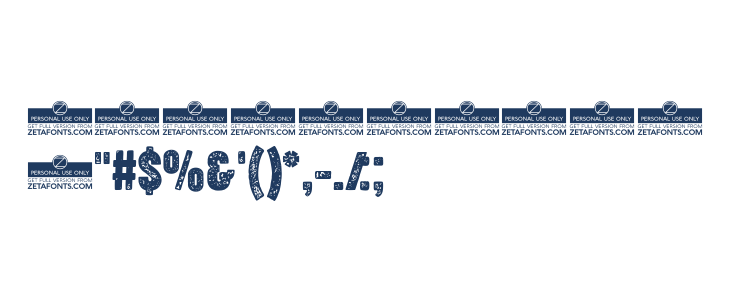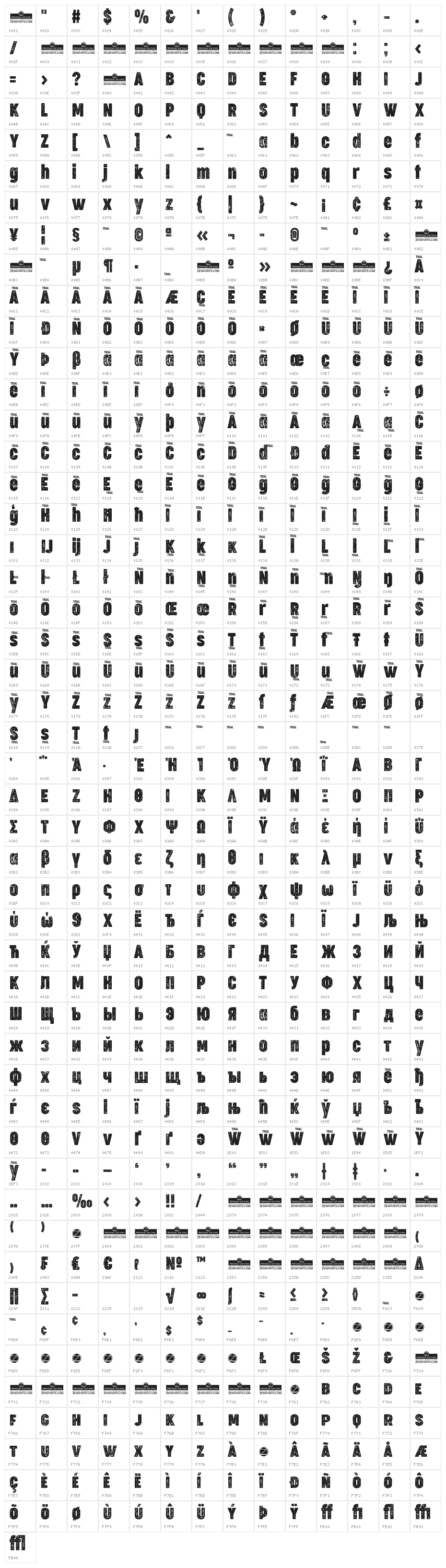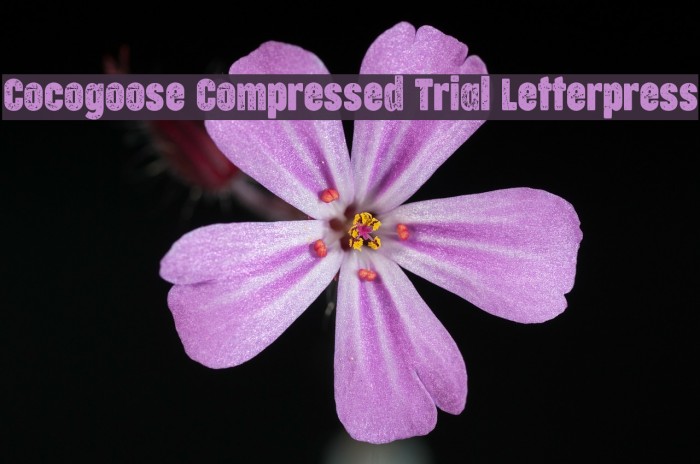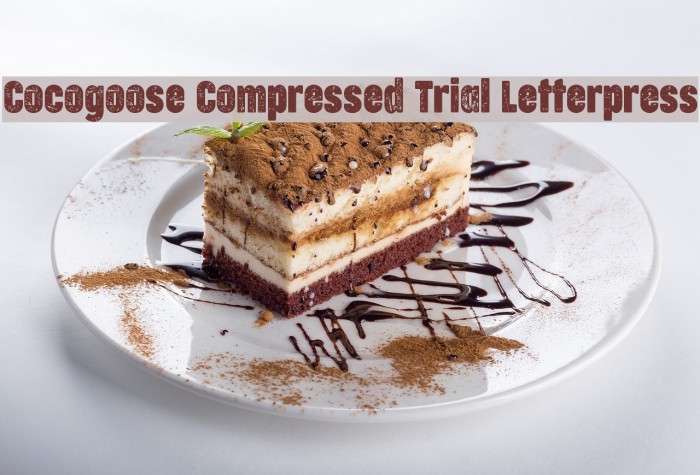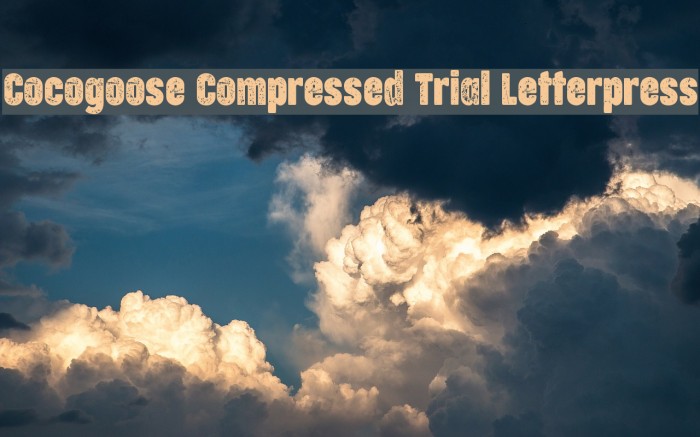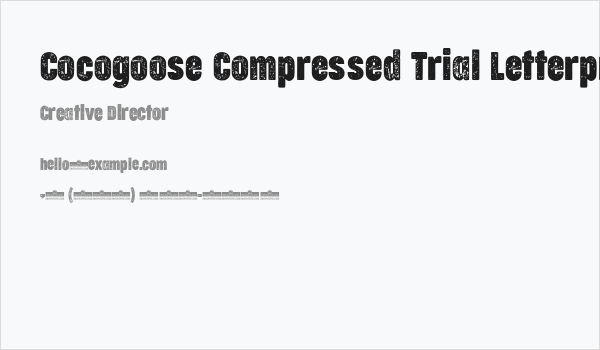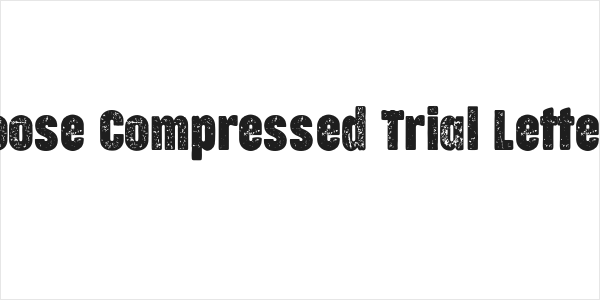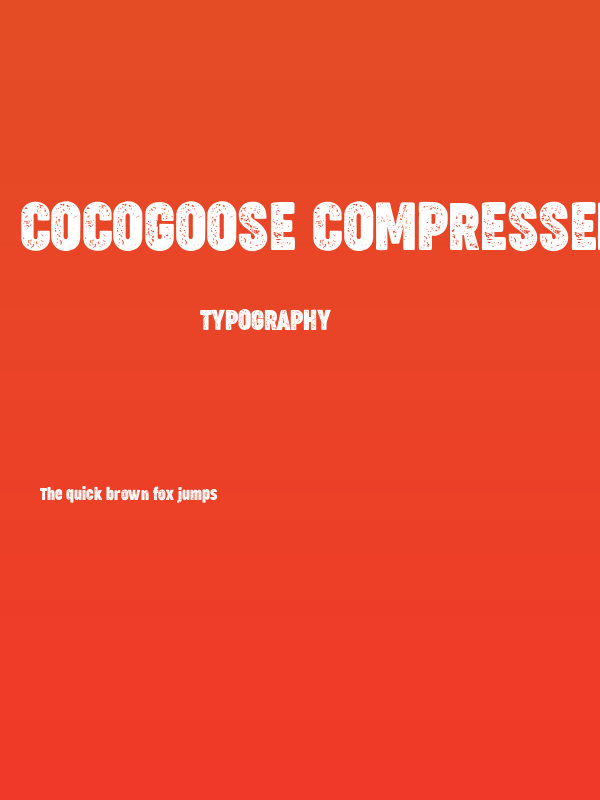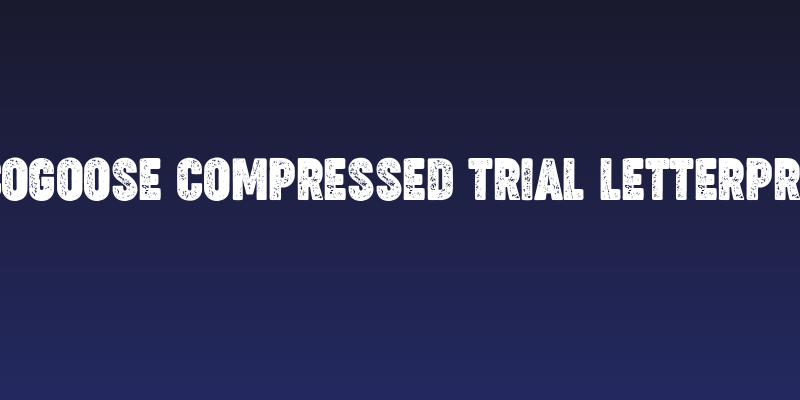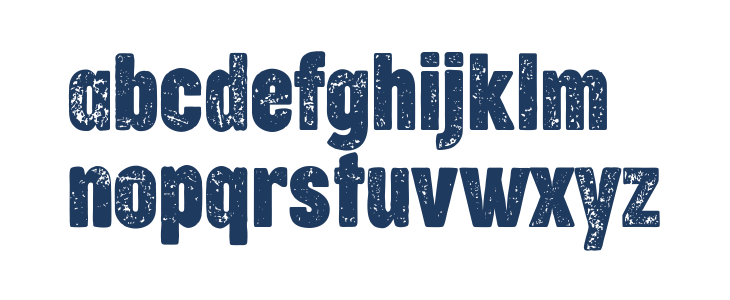
Cocogoose Compressed Trial Letterpress Font
Cocogoose Compressed Trial Letterpress Description
This font features a bold, distressed style that mimics the appearance of letterpress printing. The characters are heavily textured, giving them a rugged and vintage feel. The uppercase and lowercase letters maintain a consistent weight, with a compressed width that adds to the compact and impactful look. The numerals and special characters follow the same design, ensuring a cohesive appearance across all text. The font's unique texture makes it ideal for projects that require a rustic or industrial aesthetic.
| Proposed Projects | Ideal for branding, posters, and packaging that require a vintage or industrial look. |